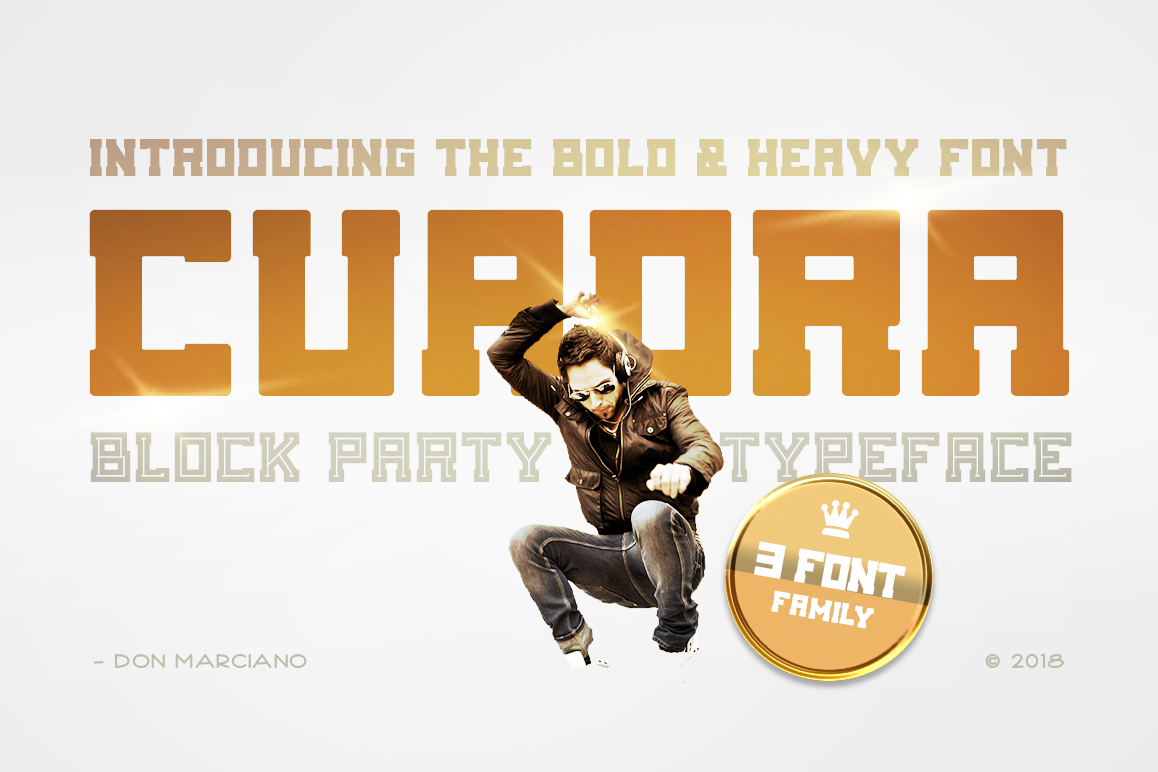
Cuadra
Cuadra-Rounded
Cuadra-Bold
Cuadra-Inline
Cuadra is a bold block style font design for ads and promotional materials for party lifestyle crowds that translate with its 3 unique styles: Bold, Rounded & Inline the 3 key moments of the night, the get-together, the show, and the afterparty, from the slow calm beat of the golden hour ‘till the crack of dawn, comes a clean modern typeface that knows what it is and its purpose in life.